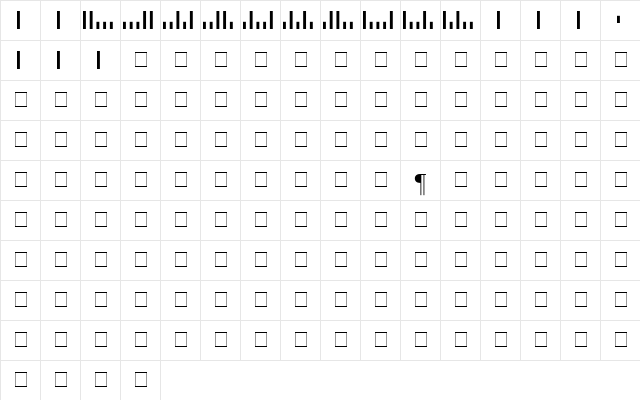
Complete Postal Bar Codes 12pt Regular glyph index. Displaying only characters natively supported by Postal Bar Codes 12pt Regular font.
Postal Bar Codes 12pt uses fixed-width spacing throughout, giving it the structured, systematic character associated with coding environments and technical documentation.